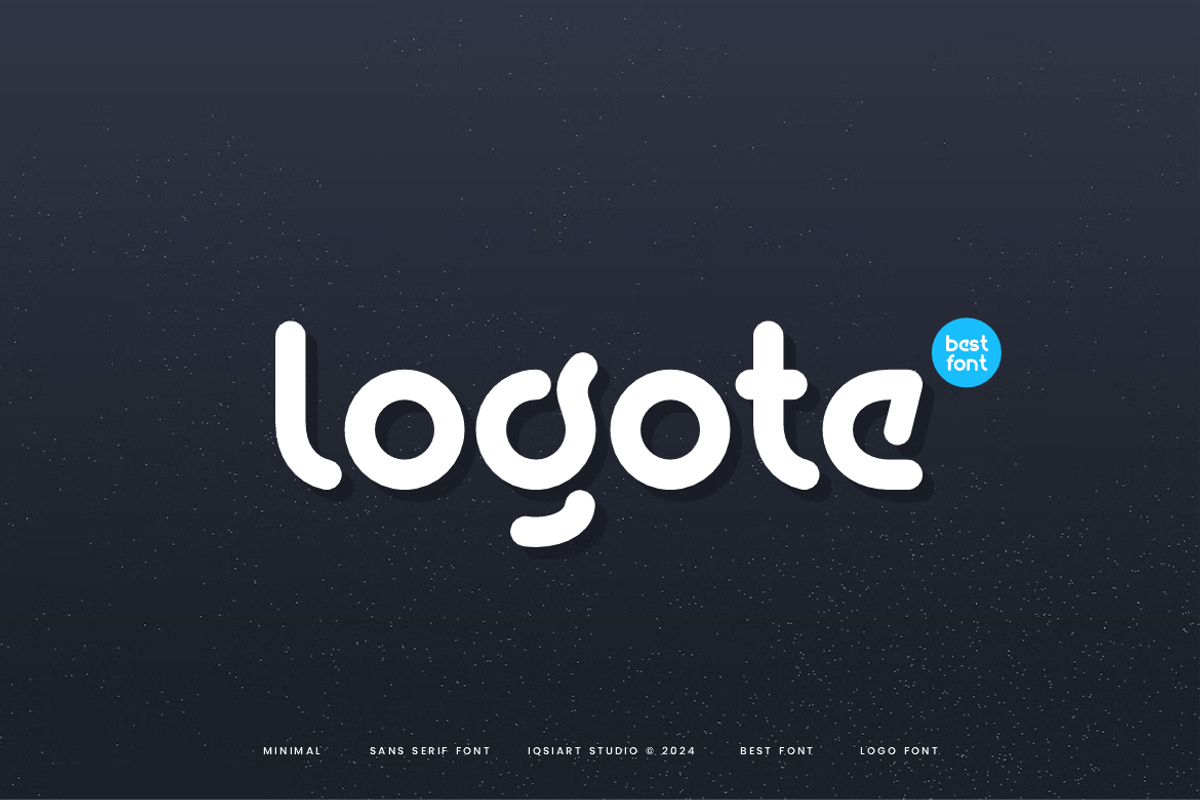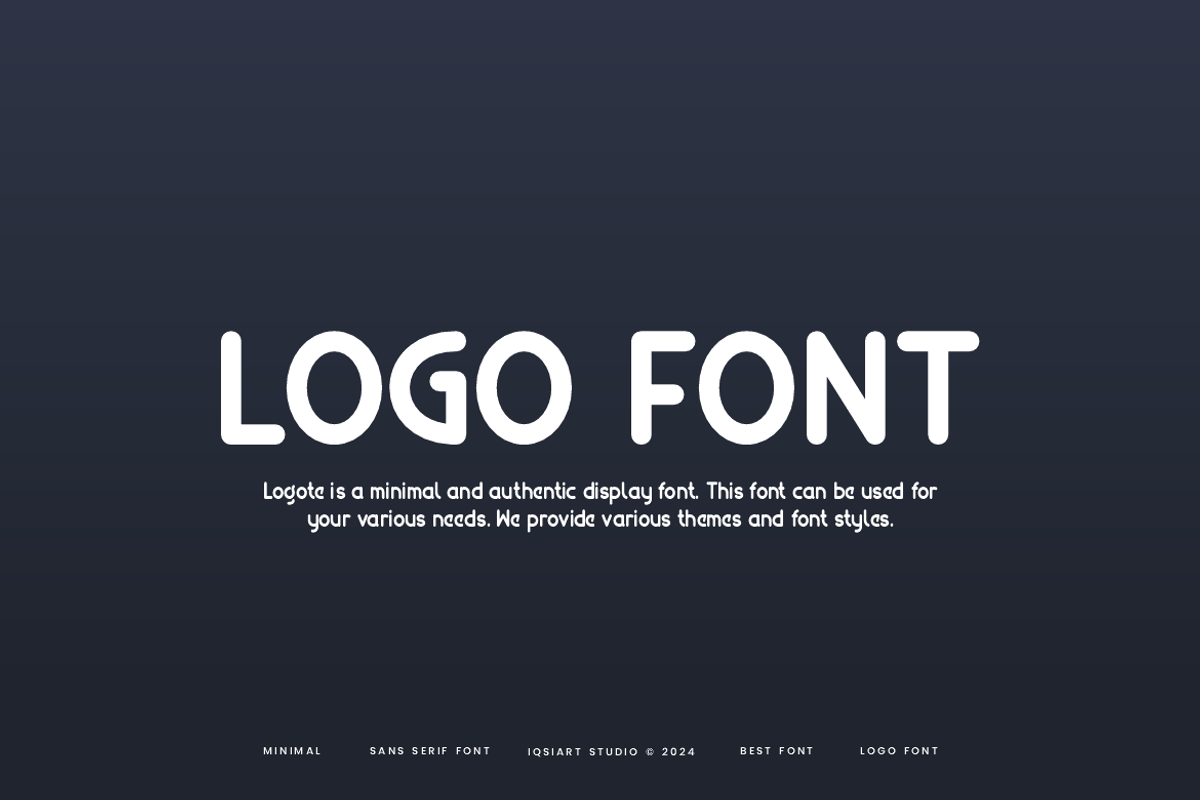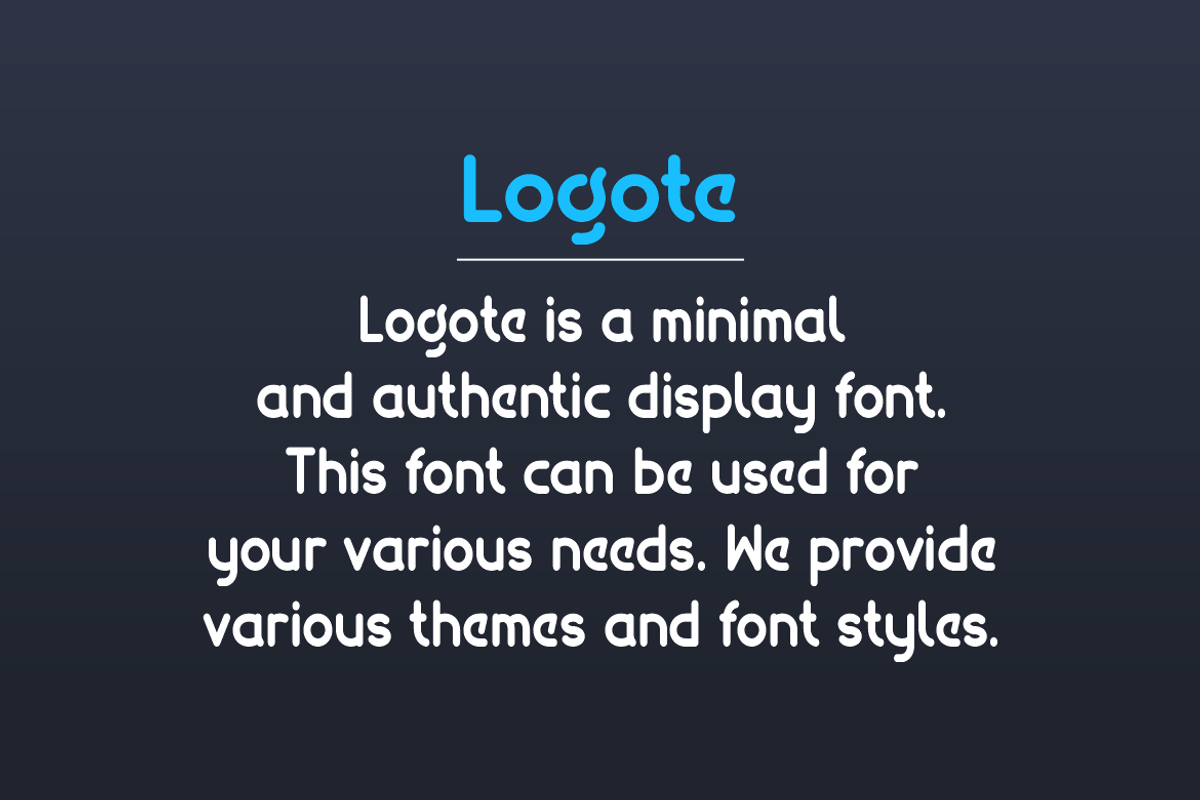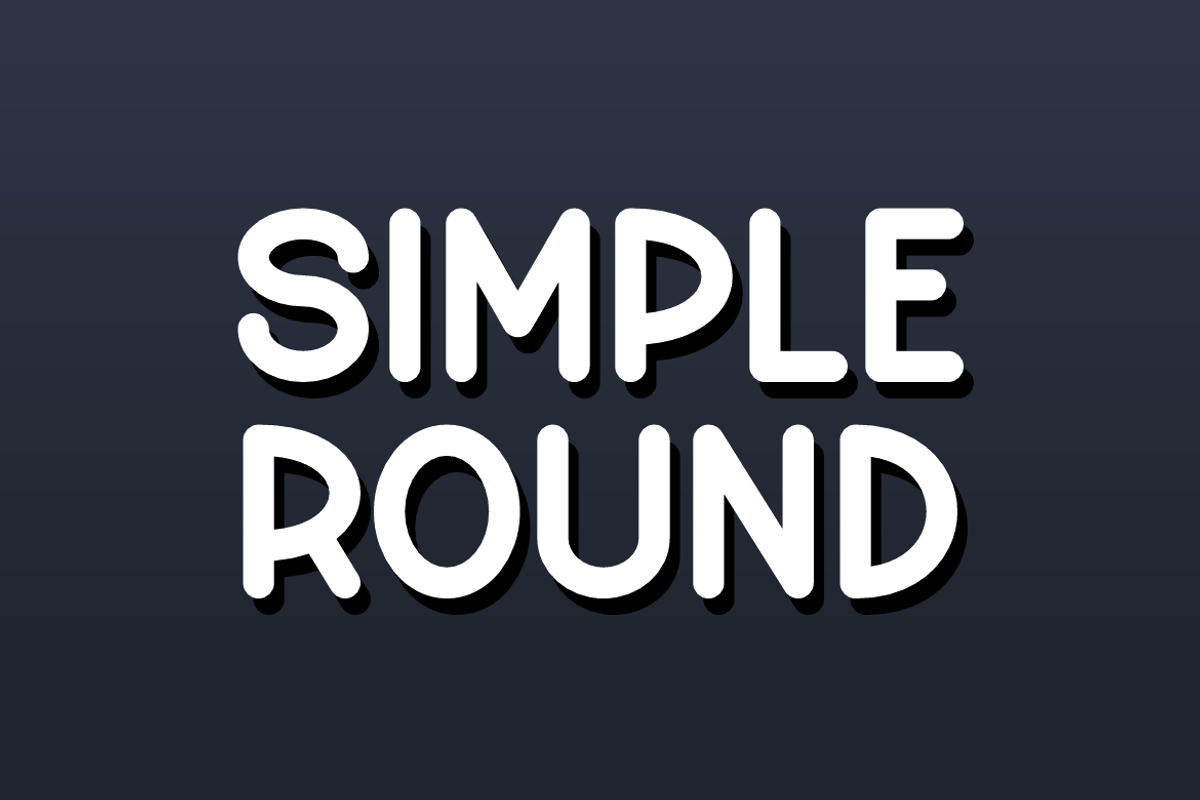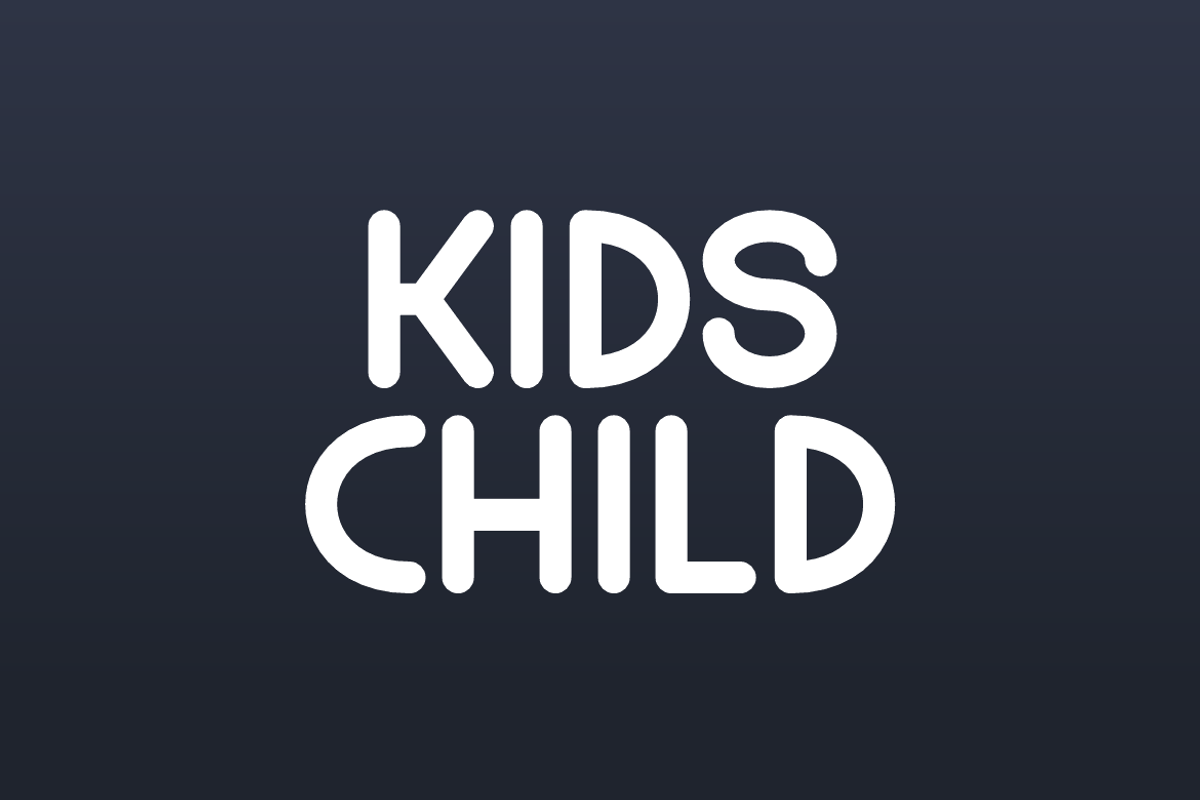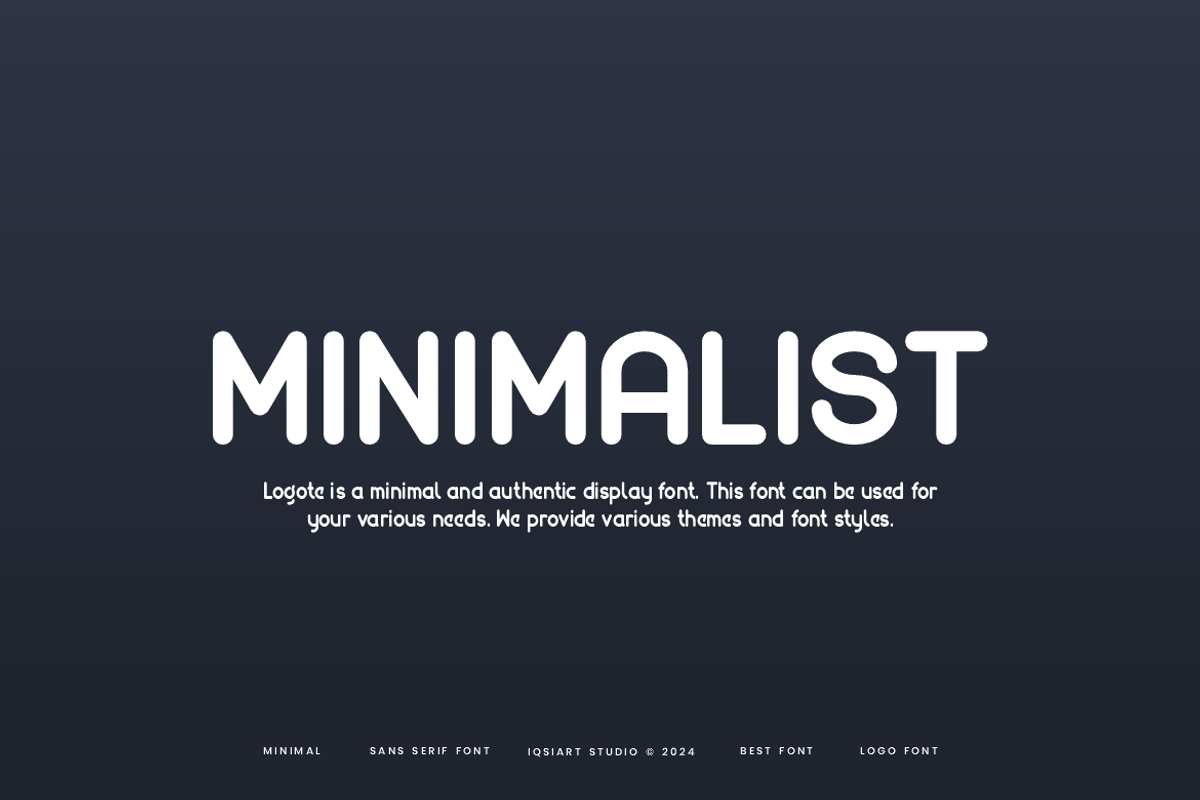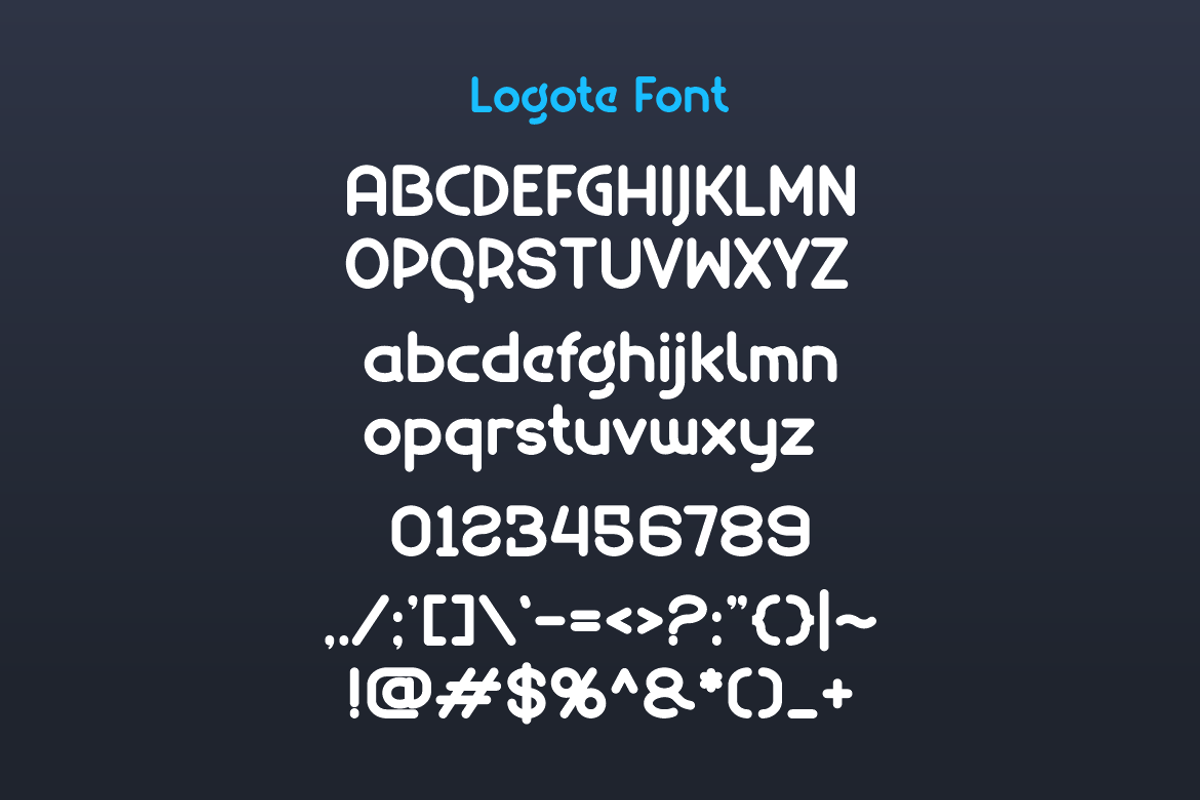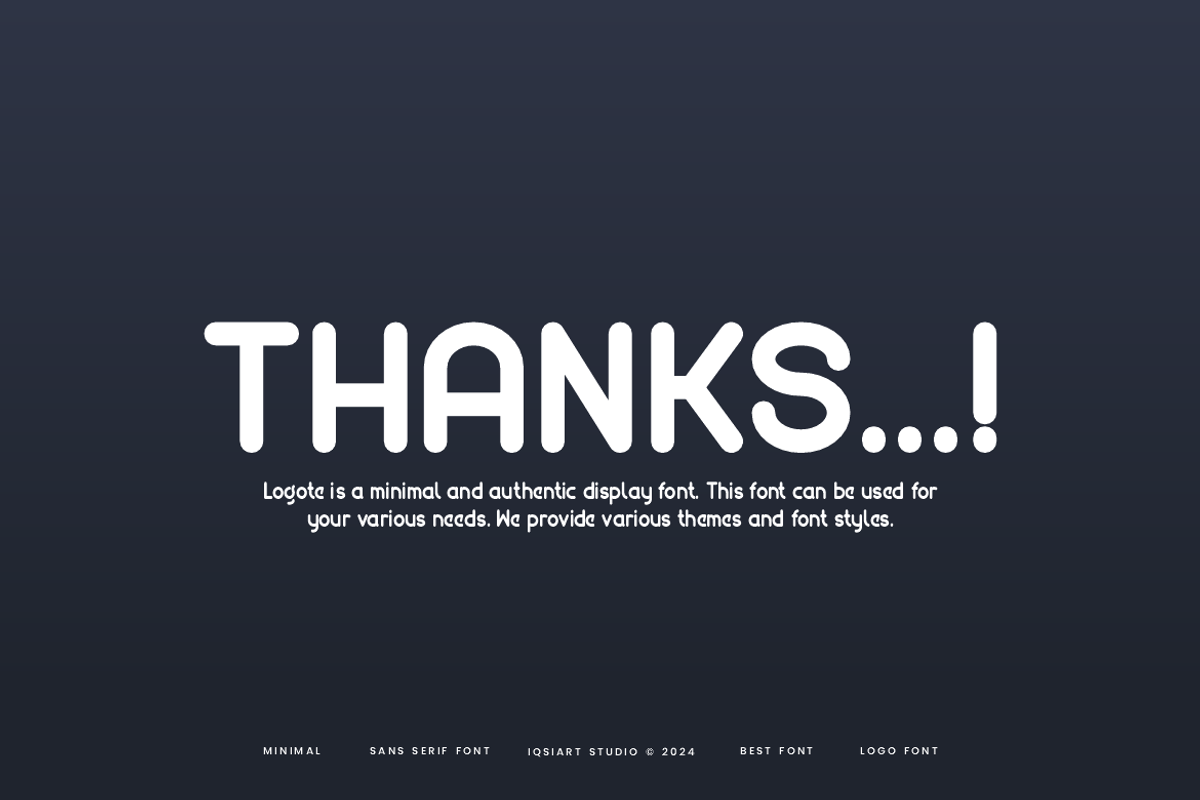
Logote - Modern Logo Font
Logote Font is a best and authentic display font. This font can be used for your various needs. We provide various themes and font styles. visit our profile to get a wide variety of themes and different font styles you need.